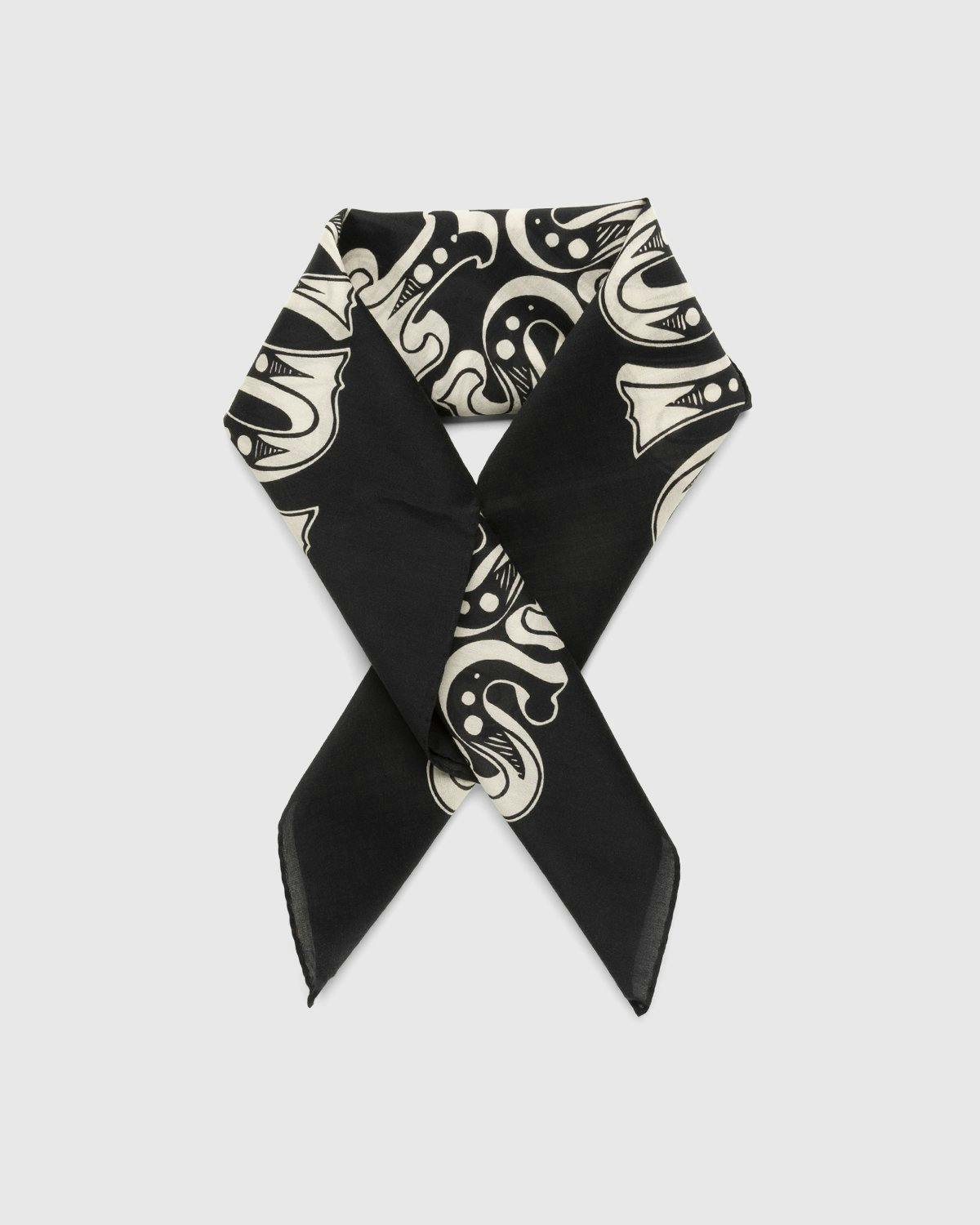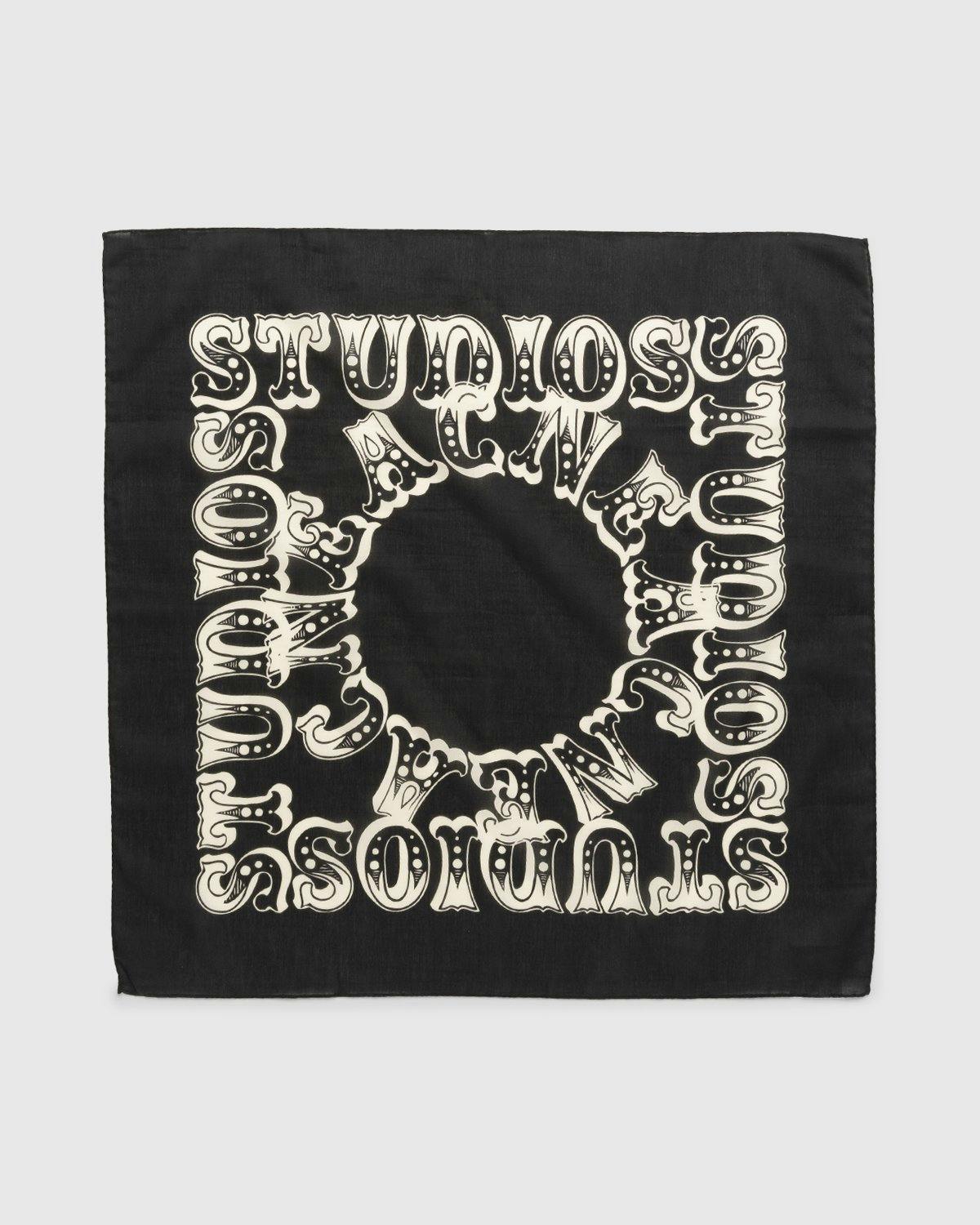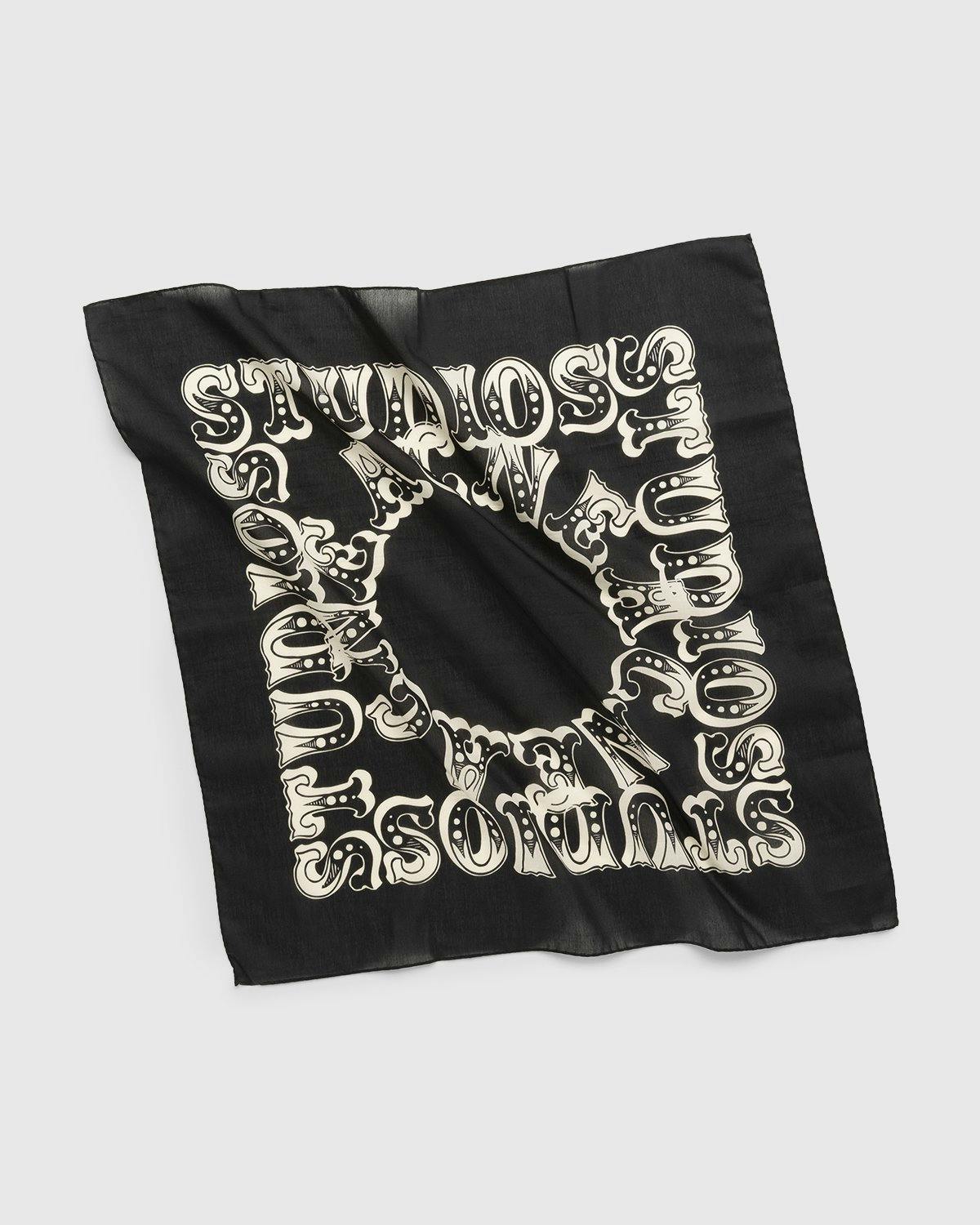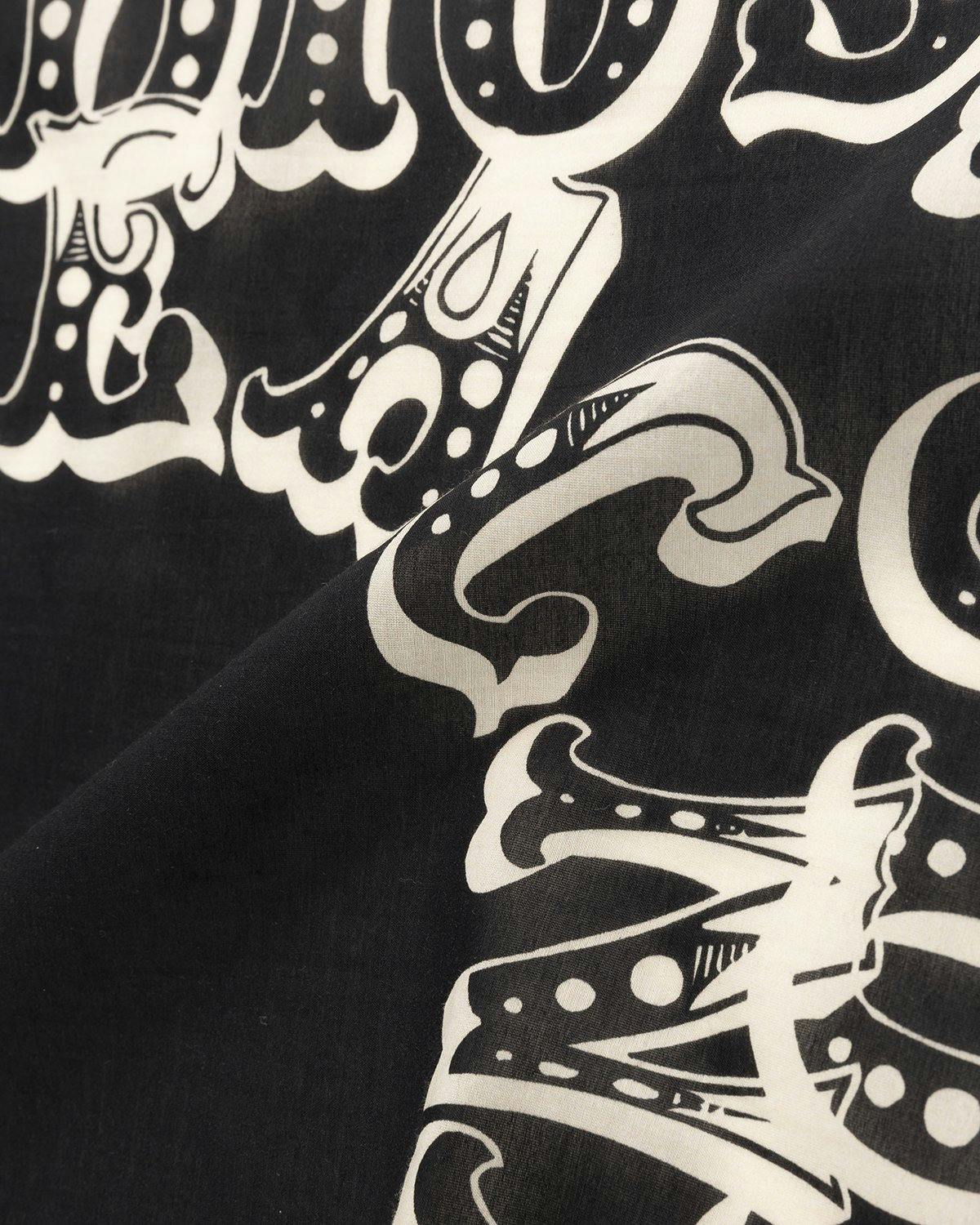
Acne StudiosCircus Font Scarf Black
A silk scarf is more of a statement piece than a functional accessory, at least in comparison to wool styles that are primarily made for warmth. A design like Acne Studios’ Circus Font Scarf is all about elevating your outfit with its luxe composition and branded embellishment. Made from a cotton and silk blend, the accessory is soft to the touch and accented with Acne Studios branding in a playful circus font. Wear it around your neck, on your head, around your arm — the square scarf is more versatile than you think.
Cotton and silk blend. Square-shaped. Acne Studios circus print.